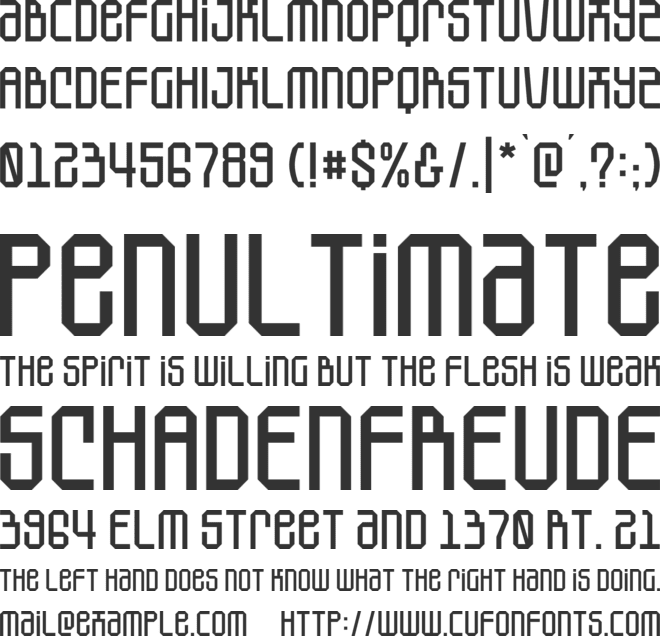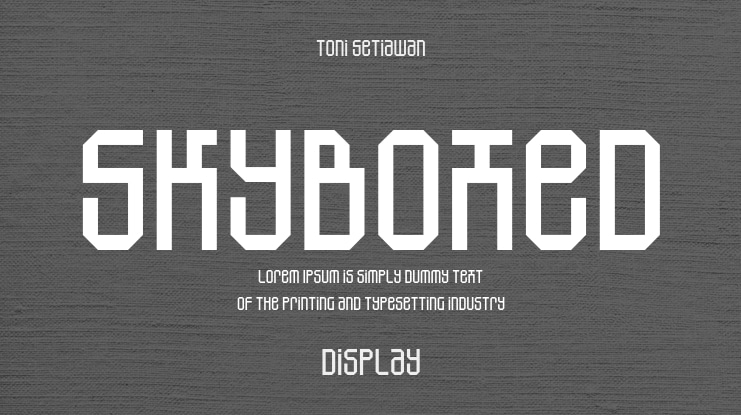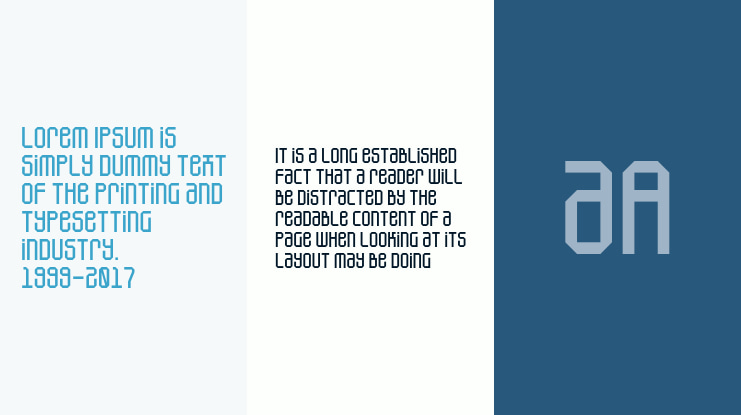
SkyBoxed Font
Experience the next level of typography with SkyBoxed – a modern futuristic display font. Powerful font boasts a cutting-edge design inspired by strength and assertiveness.